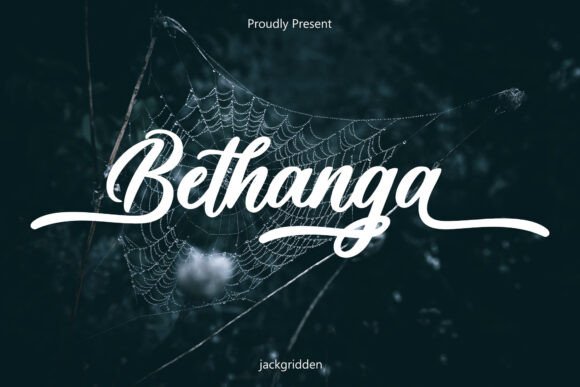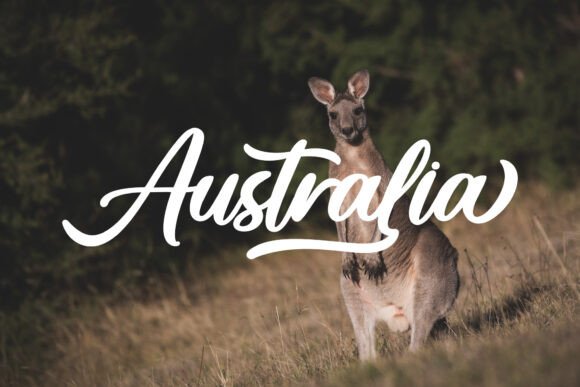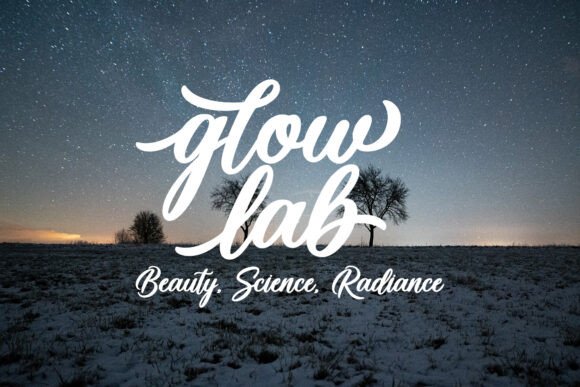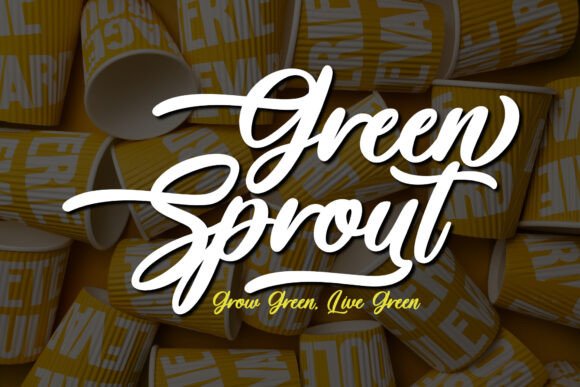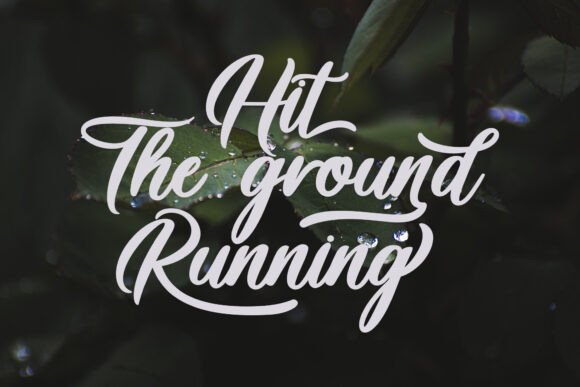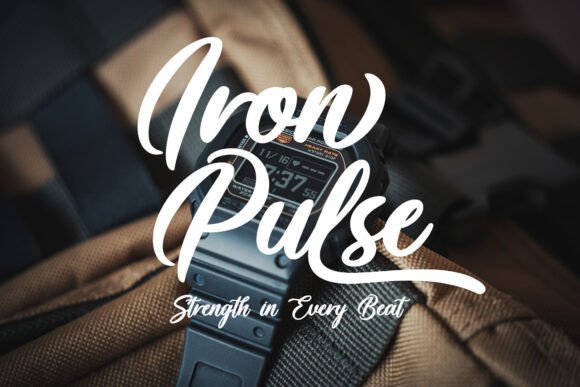
A Stroke of Creativity: Unlocking the Power of Bethanga Font
Do you remember that moment when a particular font caught your eye and made you feel like you’d stumbled upon a treasure trove of creative possibilities? For many designers, this is the spark that sets their imagination ablaze. And for those who have discovered Bethanga Font, that spark is all too familiar. This beautifully crafted handwritten font is more than just a typography tool – it’s a key to unlocking the essence of special expression and creativity.
Bethanga Font is designed to bring a touch of elegance with a casual, friendly vibe to your work. Its flowing, organic strokes and charming imperfections make it perfect for projects that need a unique, hand-drawn aesthetic. Whether you’re designing for individual or professional use, Bethanga Font is a valuable addition to any designer’s toolkit, offering a versatility that’s hard to find in other fonts.
Bethanga Font Key Features
- Font Style: Script Font
- Size: 2,800 characters, including Latin, Greek, Cyrillic, and many other languages
- Resolution: Supports high-resolution displays, ideal for printing and digital use
- Unique Characteristics: Elegant, flowing script with a sense of movement and fluidity
- Language Support: Multilingual support, covering a wide range of languages and scripts
Bethanga Font Review
I recently had the chance to work with Bethanga Font, and overall, I’m quite pleased with its performance. Here’s a breakdown of my experience.
- Legibility: Bethanga Font is designed to be highly legible, even at small font sizes. I found it easy to read, especially in digital formats.
- Line spacing: The font’s line spacing is generous, making it ideal for body text. This helps to improve readability and reduces eye strain.
- Cultural relevance: Bethanga Font is designed with a specific cultural context in mind, which I think is a great approach to typography.
- Limited style options: Bethanga Font comes in a single style, which might limit its versatility in certain design applications.
- No bold or italic variations: While the font is designed to be highly legible, it would be nice to have bold or italic variations for added emphasis.
- Not suitable for large headings: While Bethanga Font works well for body text, it might not be the best choice for large headings or titles.
Overall, I think Bethanga Font is a solid choice for digital projects, especially those with a cultural or regional focus. While it has some limitations, its strengths make it a worthwhile addition to any designer’s toolkit.
Getting the Most Out of Bethanga Font
For the best results, use Bethanga Font for headings and titles. It’s also suitable for body text in formal documents and presentations. Experiment with different font sizes and styles to achieve a balanced look.
Bethanga Font is ideal for:
– Formal documents and reports
– Presentations and proposals
– Academic papers and research studies
Q: Are there any font variations or weights available for the Bethanga font?
Yes, the Bethanga font is available in several weights, including Light, Regular, Bold, and Black. These weights provide a range of visual options for designers to choose from, depending on the specific application and design requirements.